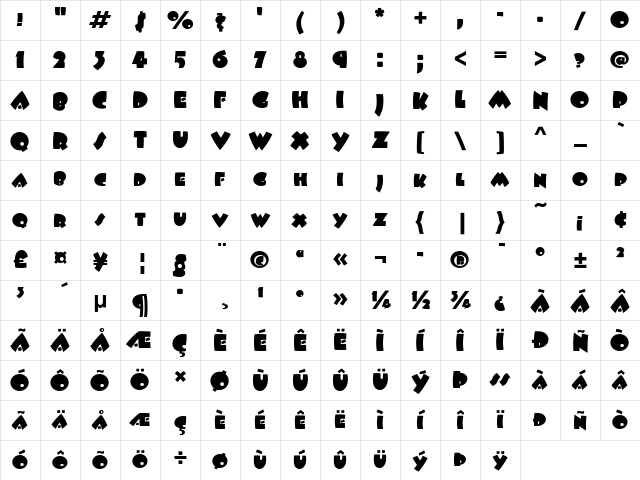
Beesknees ITC SC Regular
Foundry: by URW
Design Context for Beesknees ITC SC
Beesknees ITC SC is a composed and adaptable typeface that performs quietly and consistently across a wide range of design contexts.